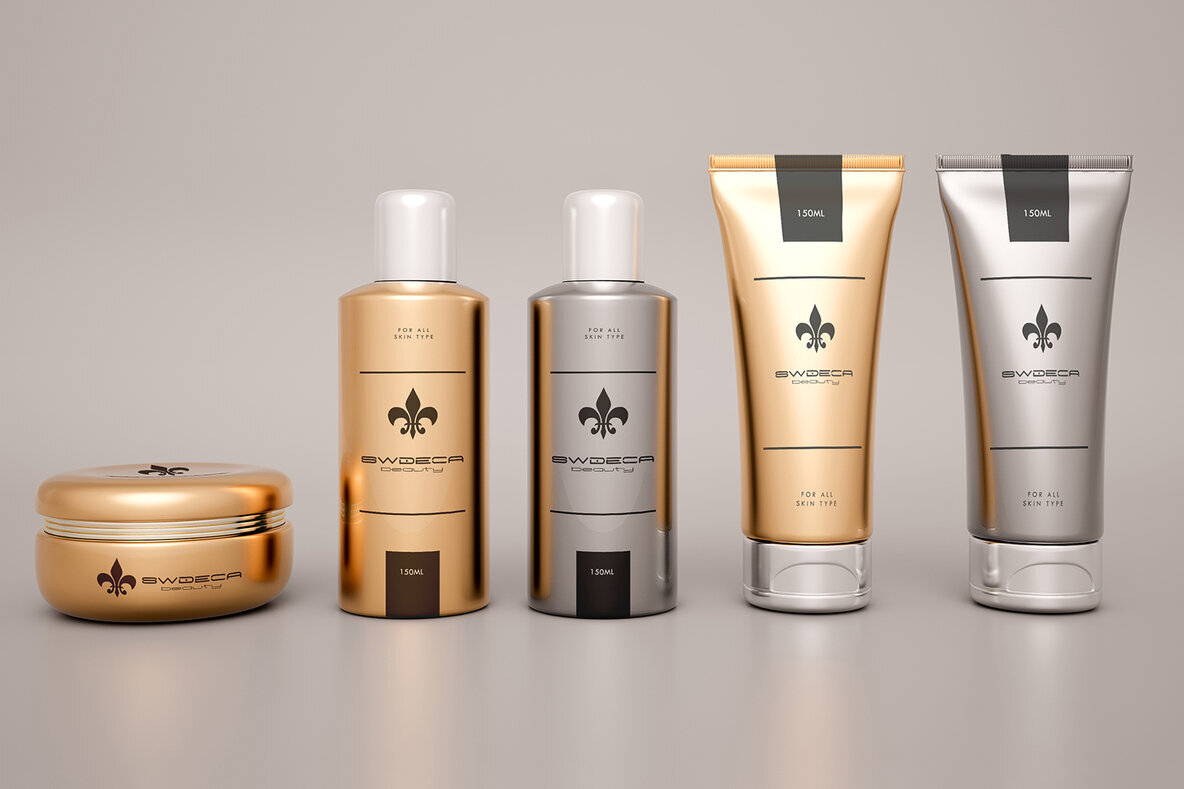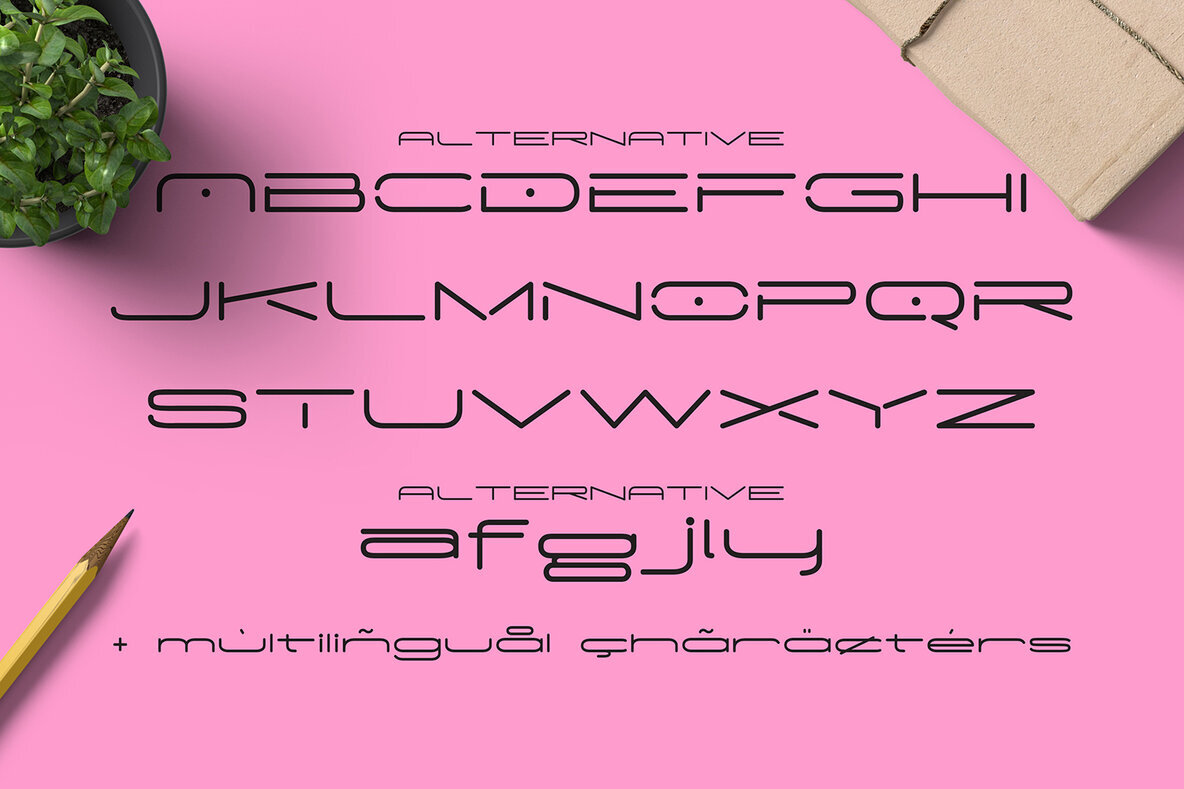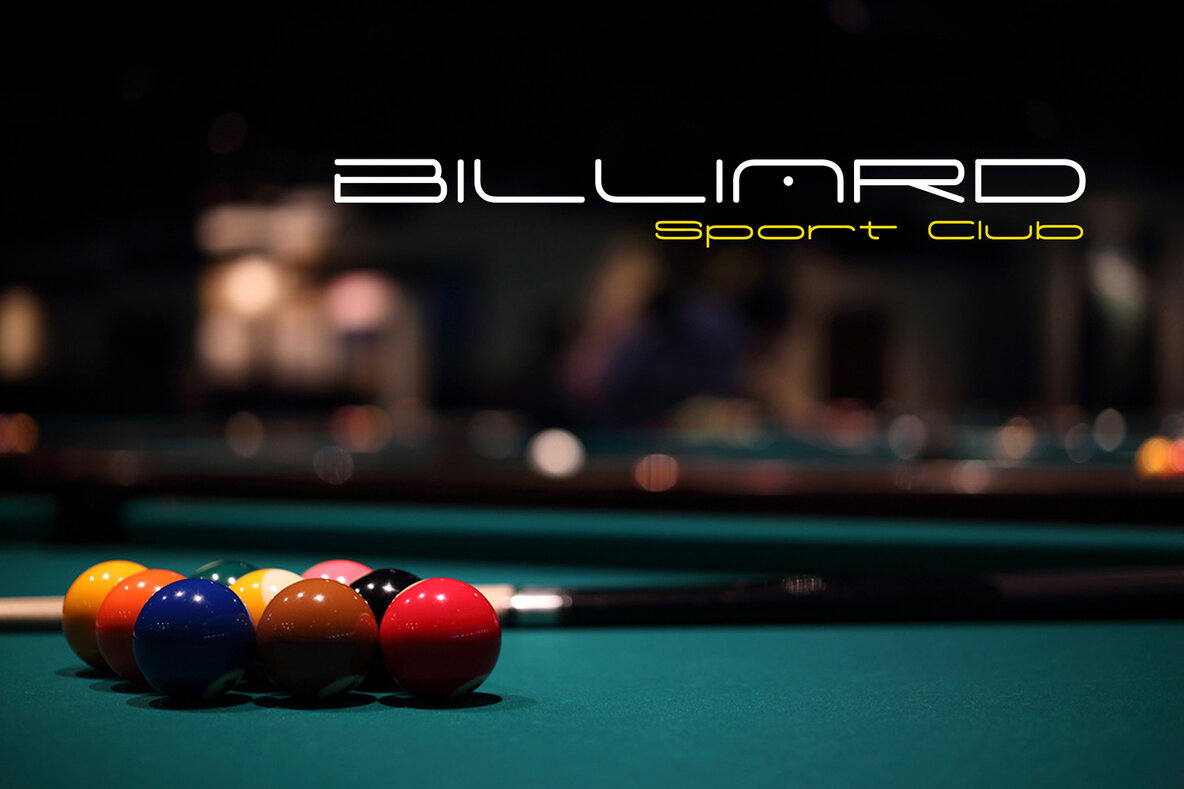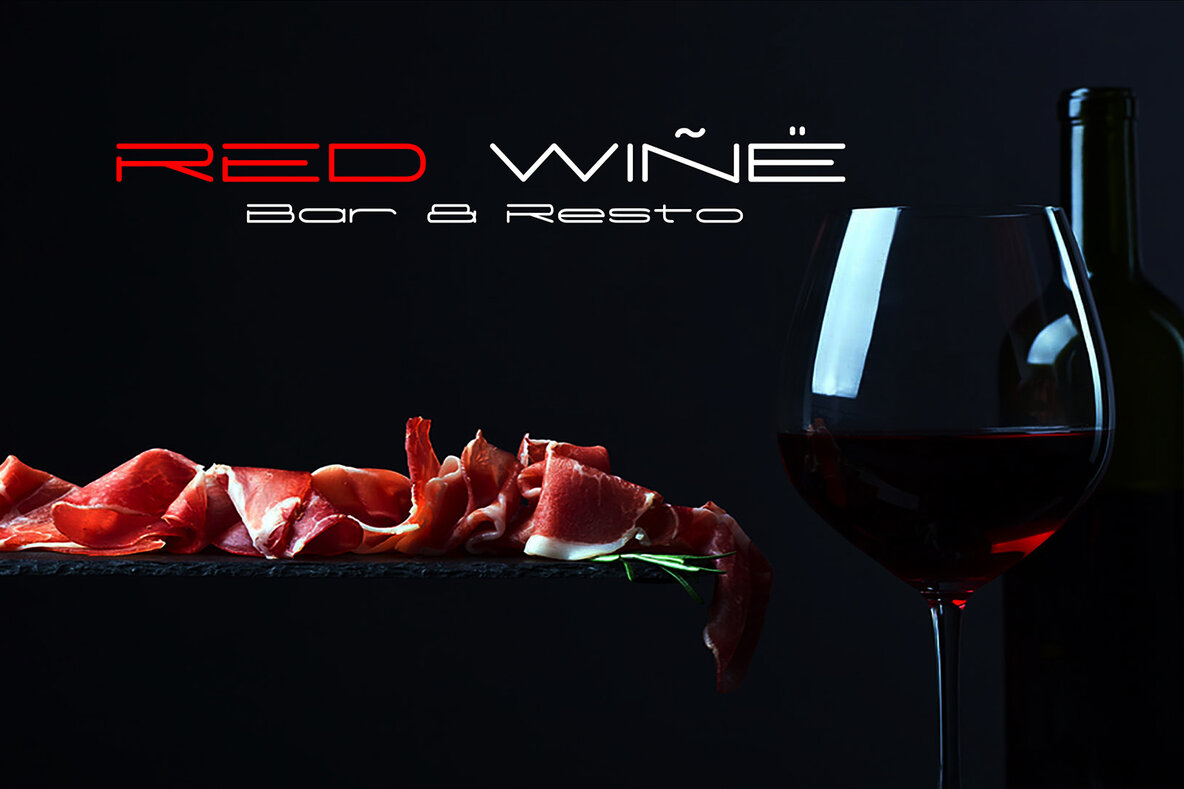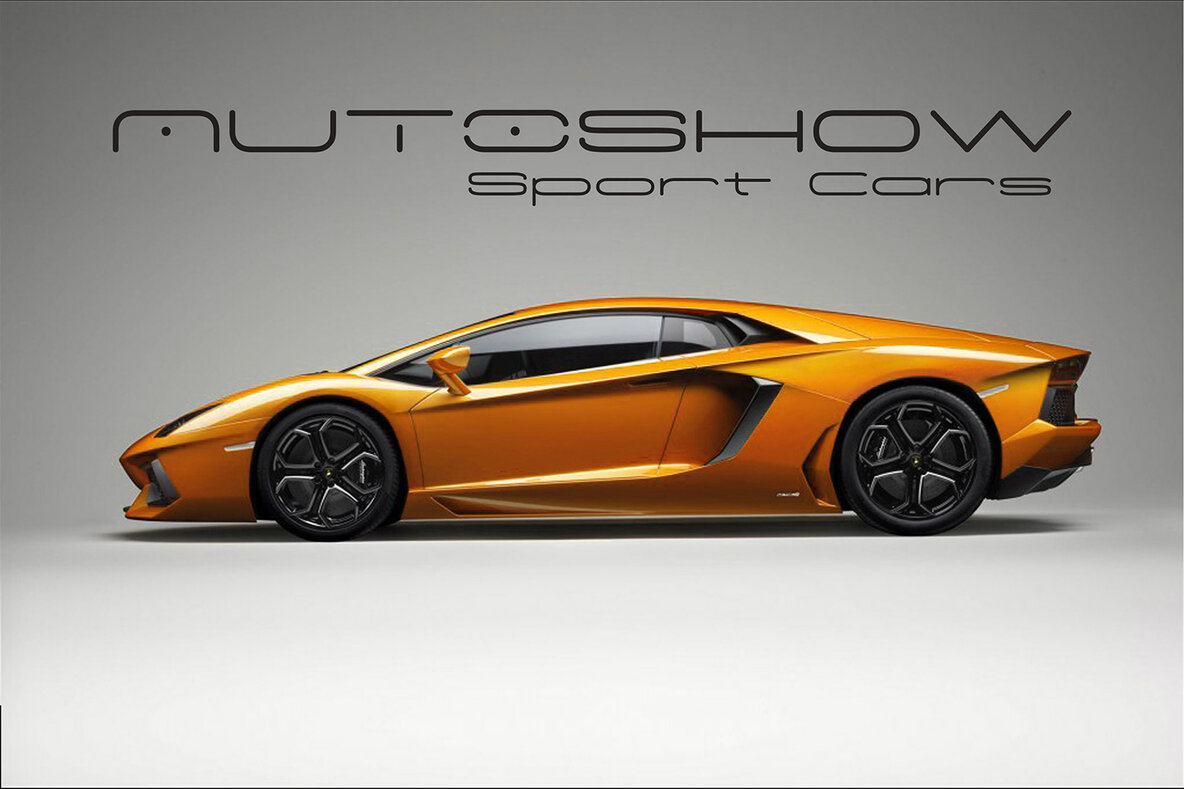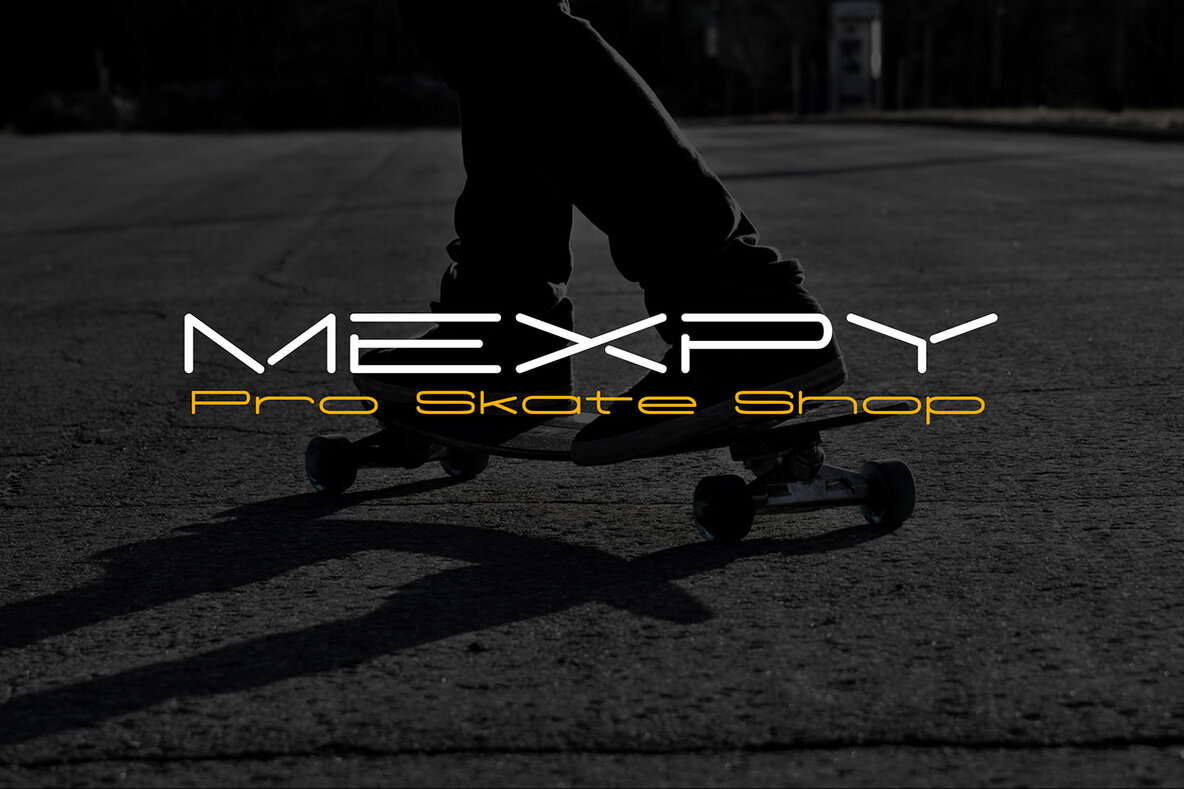
Madeleine: Minimal Modern Typeface
Madeleine is a clean and contemporary font family, designed to bring a sense of elegance and clarity to your projects. With its versatile design, this typeface is ideal for a variety of applications, from branding and product packaging to invitations and labels.
• Branding
• Product Packaging
• Invitations
• Clothing Labels
• Poster Design
• Logo Creation
Whether you're working on a logo or a clothing label, Madeleine provides the perfect touch of sophistication and modernity.